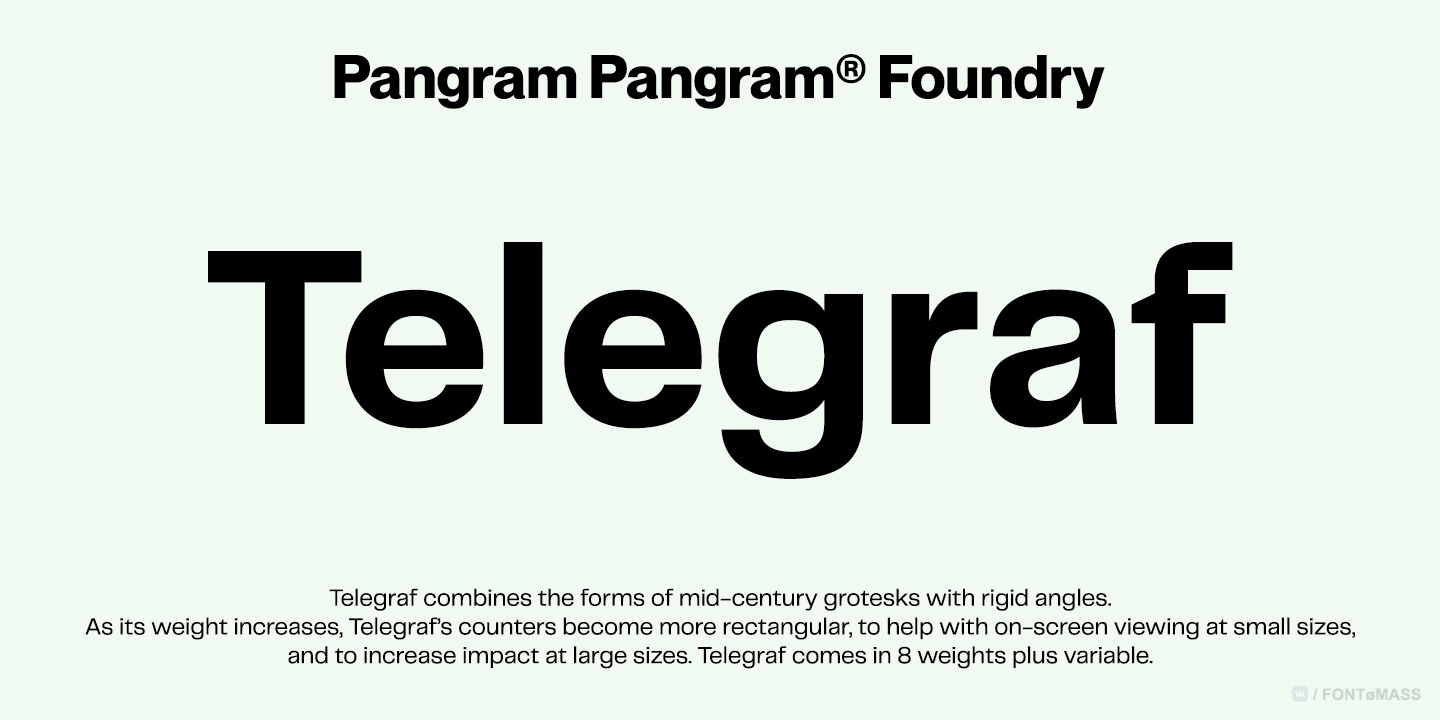
Telegraf Font
Telegraf Font is perfect for communication company branding, news agency materials, emergency service communications, vintage telegraph museum displays, urgent message campaigns, historical documentation projects, military communication designs, and instant messaging platform interfaces.
What makes Telegraf Font exciting is its urgently communicative character that captures the essential clarity and immediate impact of telegraph transmission through precisely engineered letterforms that seem designed for maximum legibility under pressure. The font features strong, utilitarian shapes with telegraph-inspired details that evoke the critical importance of clear communication when every word counts and time is of the essence. Its communication-focused aesthetic and historical authenticity make it perfect for organizations that want to communicate urgency, reliability, and the fundamental human need for instant, accurate information while creating memorable experiences that honor the revolutionary impact of instant communication technology.
Telegraf Font family includes various transmission weights such as Light, Regular, Medium, and Bold variations, often featuring telegraph-inspired alternates and communication decorative elements. The family may include morse code symbols, transmission ornaments, and urgent ligatures that enhance the font's communicative aesthetic, providing designers with comprehensive options for creating clear typographic compositions that celebrate the history and importance of instant communication.